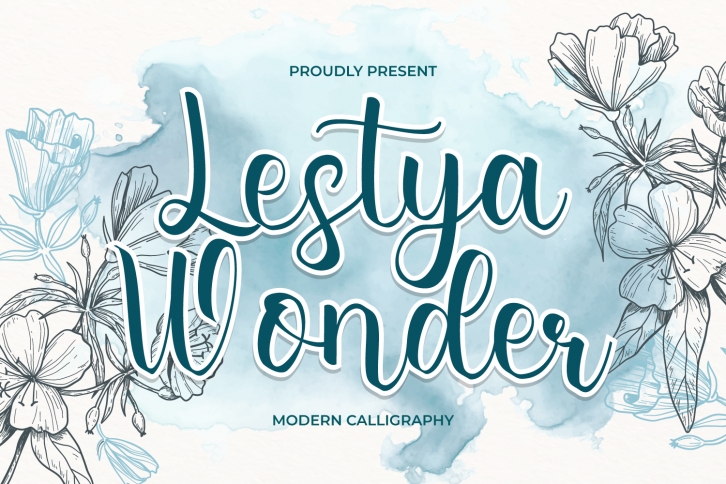
Lestya Wonder is a flowing and delicate handwritten font that embodies charm and elegance in every character. Use it for projects that need lovely, romantic typography!